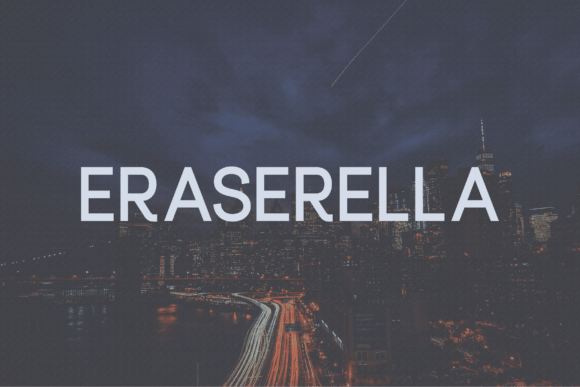
Eraserella Font: The Ultimate Choice for Bold and Modern Designs
In the world of typography, fonts play a crucial role in conveying the message and tone of a design. With the numerous options available, selecting the right font can be overwhelming, especially for designers who strive for perfection. However, if you’re looking for a bold, modern, and impactful font, look no further than Eraserella Font. In this article, we’ll explore the features, benefits, and uses of Eraserella Font, and why it’s the perfect choice for your next design project.
What is Eraserella Font?
Eraserella Font is a bold, modern, all-caps sans-serif font designed to make a statement. Its clean and minimalist aesthetic makes it perfect for creating impactful visuals that grab attention. The font is built for clarity and style, making it an excellent choice for logos, headlines, posters, packaging, and digital content.
Key Features of Eraserella Font
- Bold and Modern Design: Eraserella Font boasts a bold and modern design that is sure to make your design stand out.
- All-Caps Sans-Serif Font: The font is an all-caps sans-serif font, making it perfect for creating clean and minimalist designs.
- Standard Latin Characters, Punctuation, and Numerals: Eraserella Font includes standard Latin characters, punctuation, and numerals, making it easy to use for various design projects.
- Highly Versatile: The font is highly versatile and can be used for a wide range of design projects, from branding and tech to fashion and creative projects.
- Simple to Use: Eraserella Font is simple to use, making it perfect for designers of all levels.
Benefits of Using Eraserella Font
Eraserella Font offers several benefits that make it an excellent choice for designers. Some of the benefits include:
- Professional Look: Eraserella Font adds a professional touch to any design, making it perfect for businesses and brands.
- Improved Readability: The font is designed for clarity, making it easy to read and understand.
- Flexibility: Eraserella Font can be used for various design projects, from print to digital media.
- Unique and Impactful: The font’s bold and modern design makes it unique and impactful, ensuring your design stands out.
Uses of Eraserella Font
Eraserella Font is a versatile font that can be used for various design projects. Some of the popular uses of the font include:
- Logo Design: Eraserella Font is perfect for creating bold and modern logos that make a statement.
- Headlines and Posters: The font is ideal for creating eye-catching headlines and posters that grab attention.
- Packaging Design: Eraserella Font can be used for packaging design to create a professional and modern look.
- Digital Content: The font is perfect for digital content, including social media graphics, website headers, and more.
- Branding and Identity: Eraserella Font can be used for branding and identity projects to create a consistent and professional look.
Why Choose Eraserella Font?
Eraserella Font is an excellent choice for designers who want to create bold and modern designs. Here are some reasons why you should choose Eraserella Font:
- Unique Design: Eraserella Font has a unique and modern design that sets it apart from other fonts.
- High-Quality: The font is of high quality, making it perfect for professional design projects.
- Easy to Use: Eraserella Font is simple to use, making it perfect for designers of all levels.
- Versatile: The font is highly versatile and can be used for various design projects.
Eraserella Font is a bold, modern, and impactful font that is perfect for designers who want to create clean and minimalist designs. With its unique design, high-quality, and versatility, Eraserella Font is an excellent choice for various design projects, from logos and headlines to packaging and digital content. Whether you’re a professional designer or just starting out, Eraserella Font is a great addition to your font library.
- What is Eraserella Font?: Eraserella Font is a bold, modern, all-caps sans-serif font designed for clean and impactful visuals.
- Is Eraserella Font easy to read?: Yes, Eraserella Font is designed for clarity and is easy to read, making it perfect for body text and headlines.